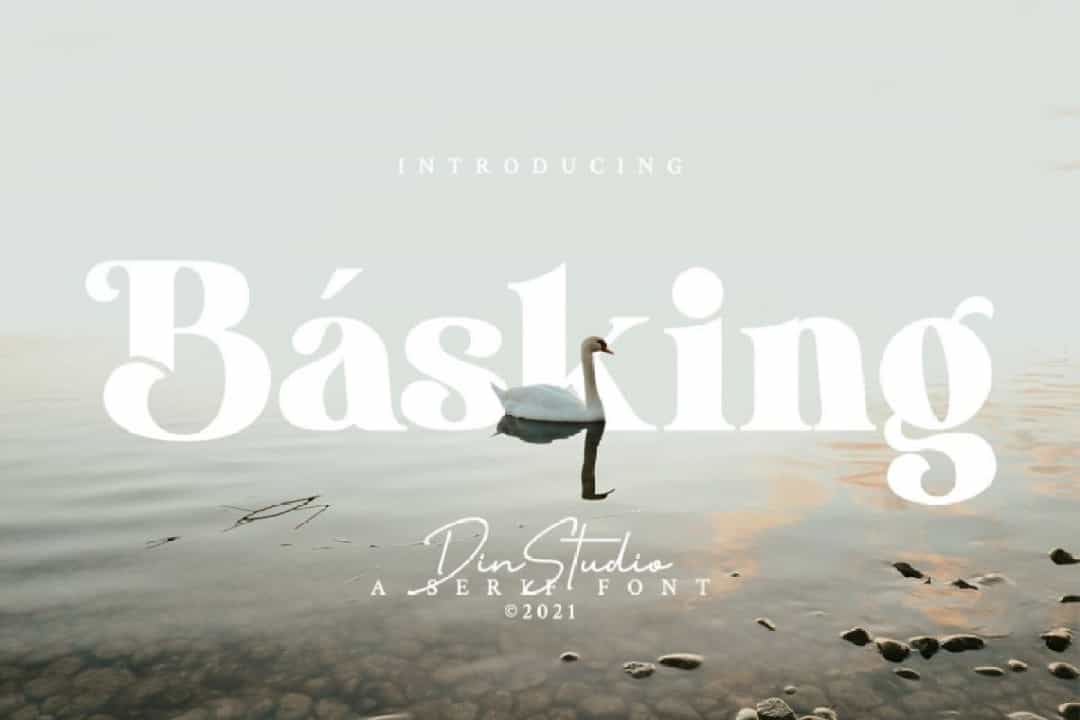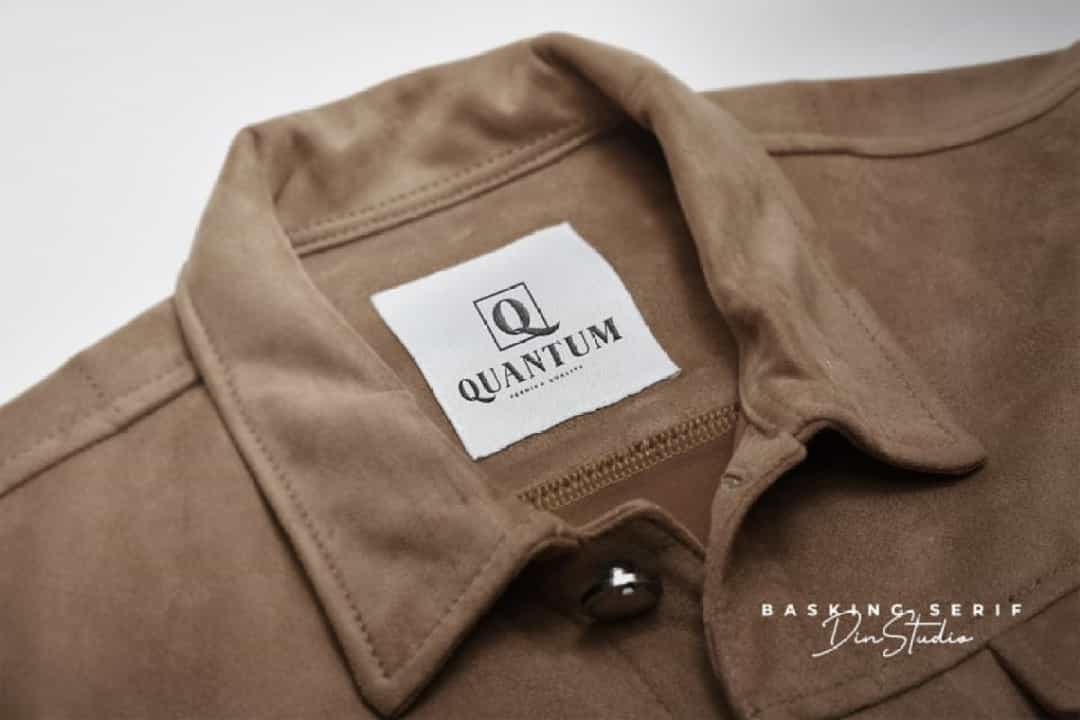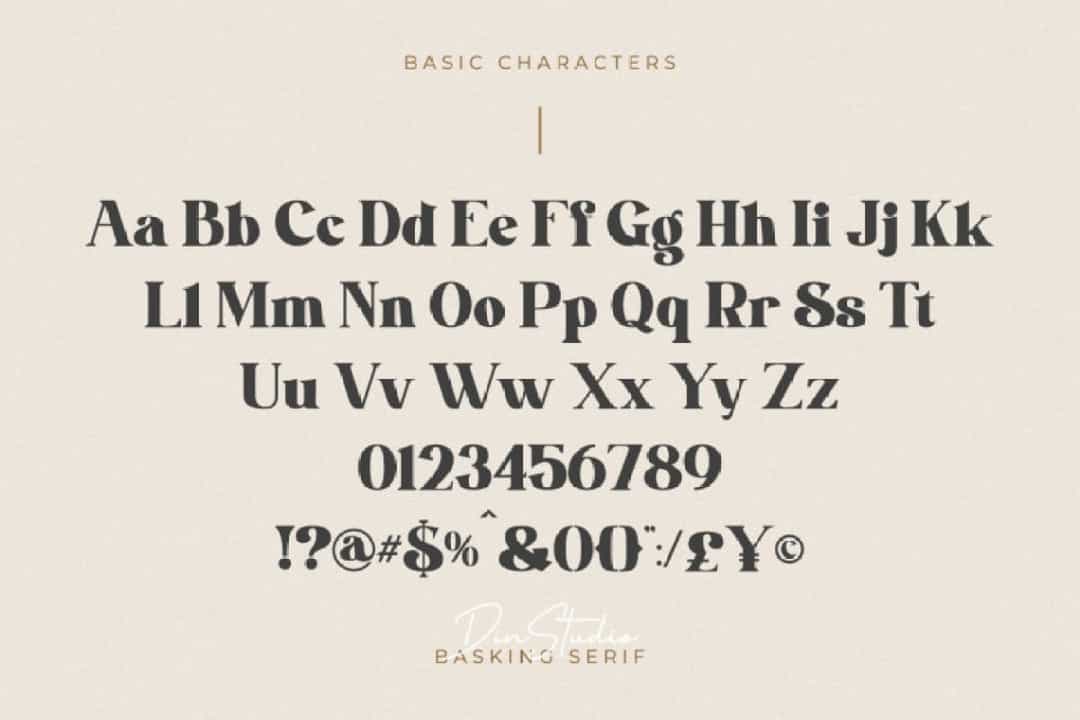
Basking is an attractive serif font. It is suitable for any content and projects and will make a great impression on customers and help establish your brand among competitors. Basking is appropriate to meet many content or project needs.